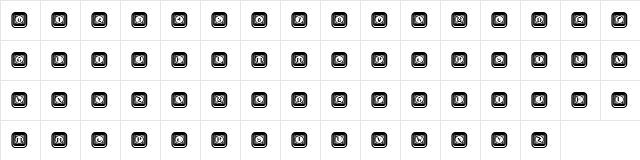
Retrospective Capitals Regular Font Preview
Retrospective Capitals Regular
Design Context for Retrospective Capitals Typeface
Retrospective Capitals has the warm character of retro typography — evoking diners, record sleeves, and the golden age of print advertising.
Font Pairing: Combine Retrospective Capitals with a simple slab or neutral sans — period-accurate companions reinforce the vintage feel without competing for attention.
Pro Tip: Lean into Retrospective Capitals's period character by pairing it with aged paper textures, muted colour palettes, and vintage illustration styles.